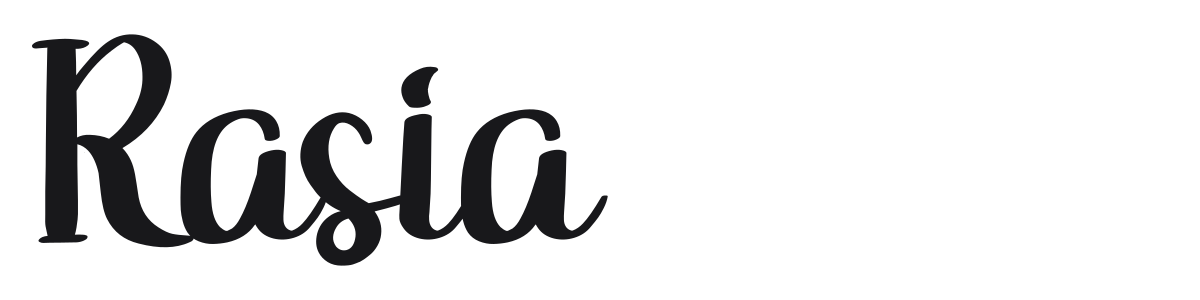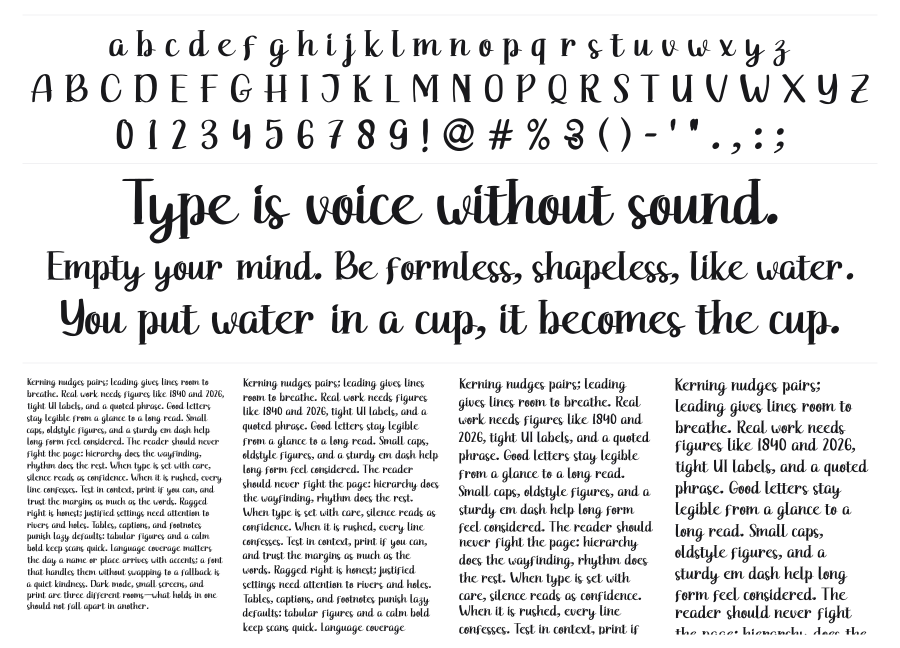
Rasia
Rasia is a bold casual script with a relaxed hand-lettered quality and smooth, flowing connections between characters. The mix of calligraphic stroke contrast and informal bounce gives it genuine warmth without feeling childish. It reads well at large sizes for logos, packaging, and display headlines.